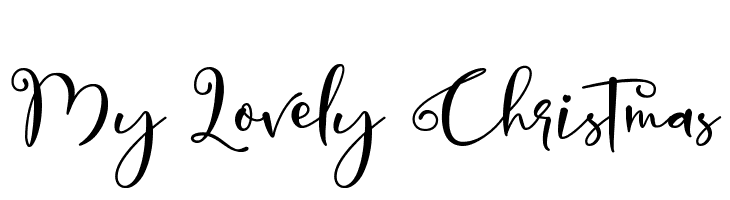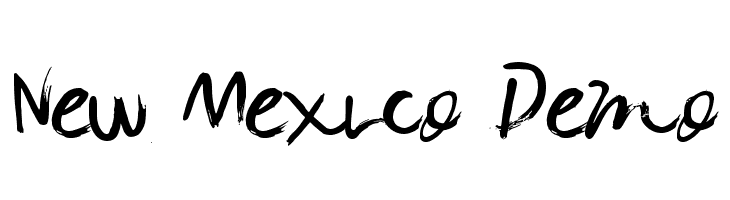
A bold and playful font with thick, rounded strokes and a whimsical style.
A playful, flowing script font with smooth, continuous strokes and rounded edges.
A bold, brushstroke font with a dynamic and artistic style.
A sophisticated handwritten font with fluid, cursive strokes.
A bold, dynamic script font with a handwritten style.
A decorative font with autumn-themed illustrations and motifs.
A casual, handwritten font with elegant, elongated letters and a dynamic, lively appearance.
A playful, hollow bubble-like font with a whimsical inverse design.
A modern, condensed sans-serif font with clean lines and a professional appearance.
A playful, handwritten script with a whimsical and informal style.